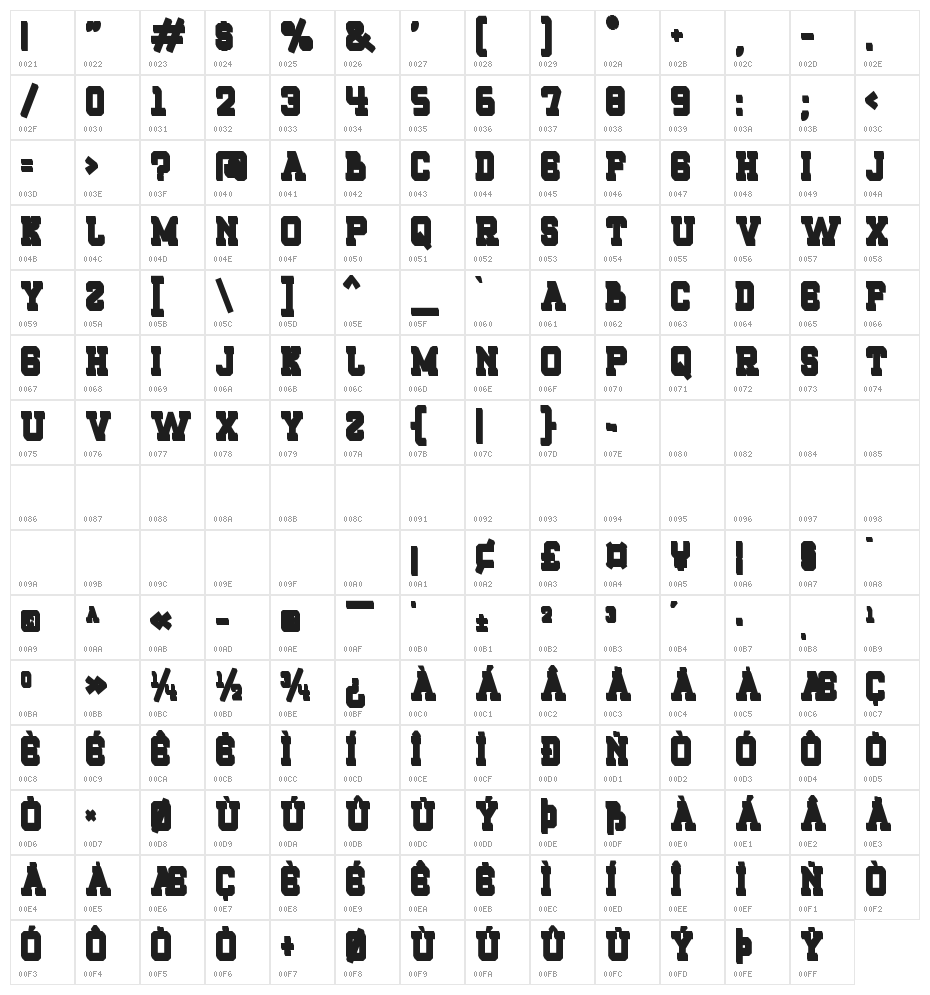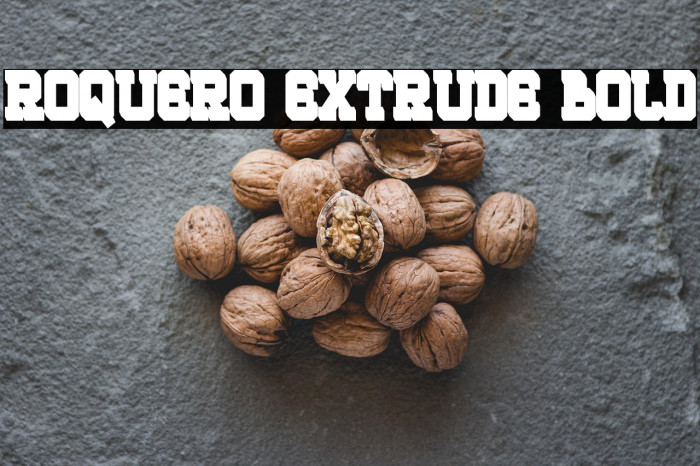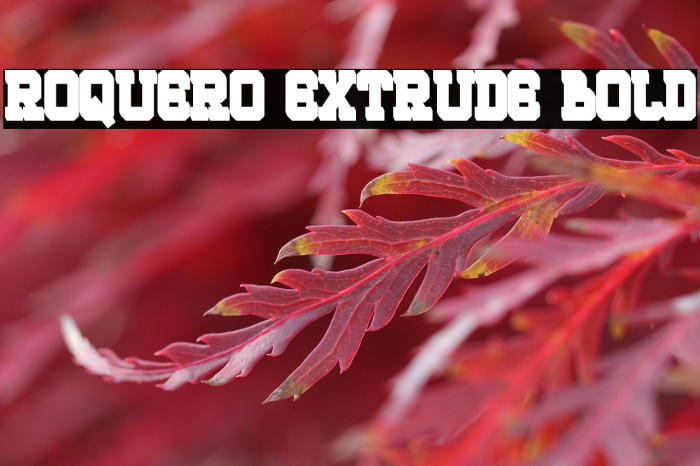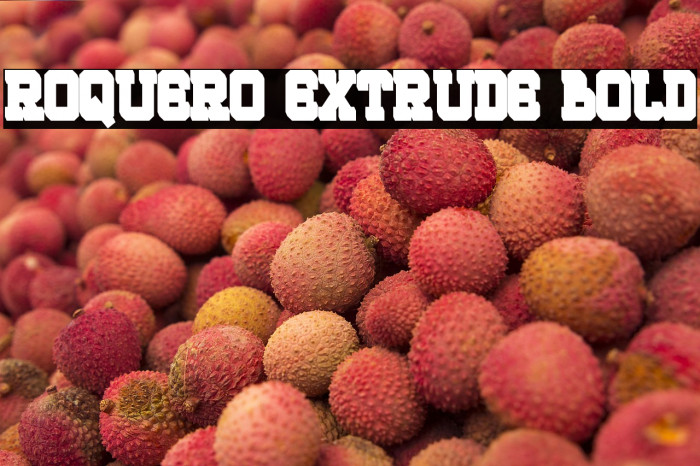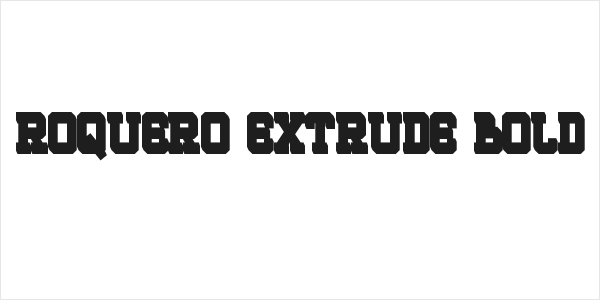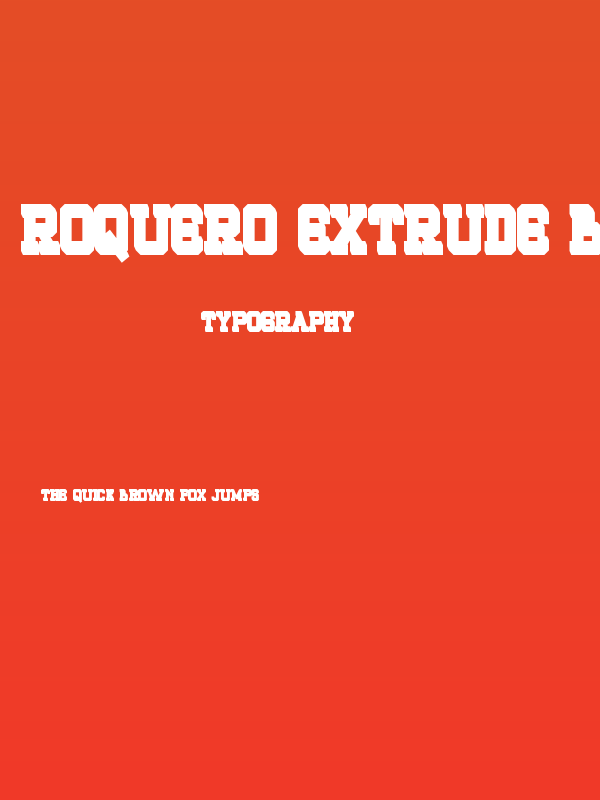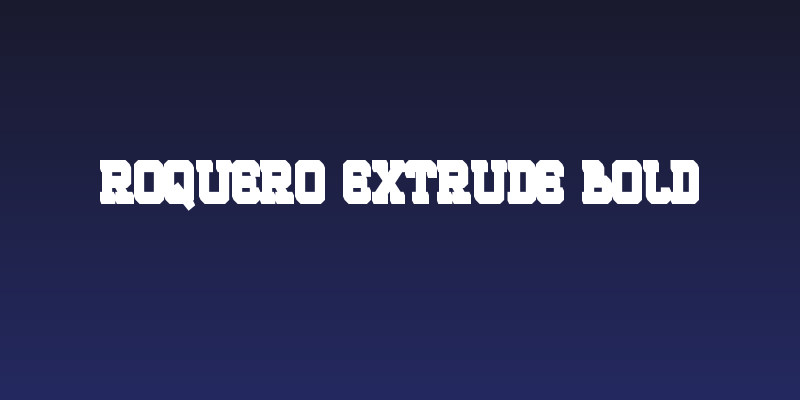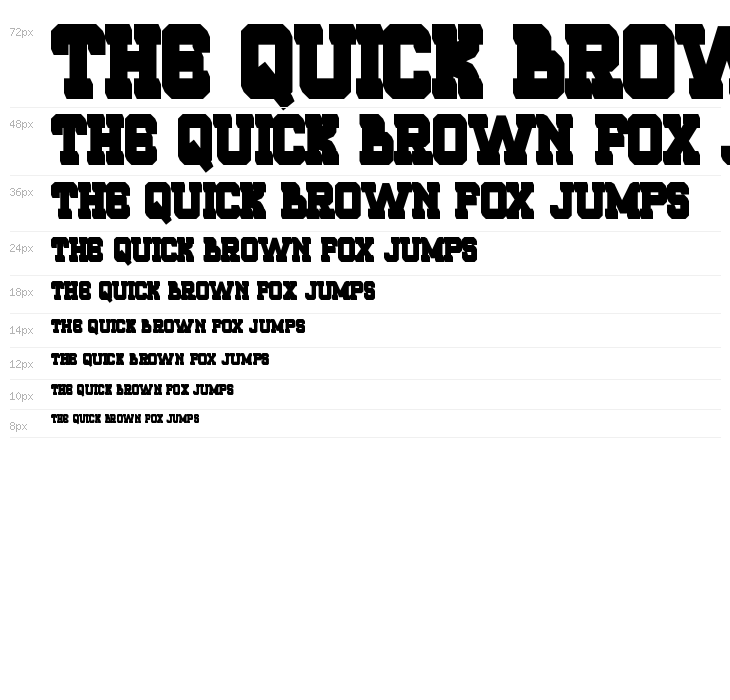
ROQUERO Extrude Bold Font
ROQUERO Extrude Bold Description
This bold, extruded typeface features a robust and impactful design, characterized by its thick, blocky letters and strong geometric shapes. The uppercase letters are uniform in height, with a consistent width that gives the font a solid and cohesive appearance. The numerals and special characters maintain the same boldness, ensuring a harmonious look across all text. The font's extruded style adds depth, making it ideal for eye-catching designs. Its boldness and unique style make it suitable for projects that require a strong visual impact.
| Proposed Projects | Ideal for posters, headlines, logos, and branding materials that require a strong visual presence. |